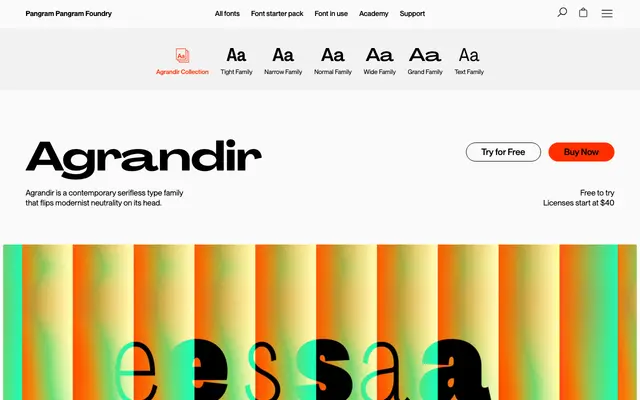
Agrandir
A 74-style serifless family spanning five widths and a text cut, built around deliberately imperfect, quirky letterforms as a counterpoint to modernist neutrality.
Designed by Alex Slobzheninov, Agrandir runs across six sub-families from Tight to Grand, each with 14 styles plus a variable cut, alongside a four-style Text family for body copy. Three OpenType preset alternates, Default, Grotesk and Geometric, shift the overall character without requiring per-glyph adjustments. The tight spacing and wide width range make it well suited to headlines, logotypes and posters, while the Text subfamily handles longer reads.
A serifless type family described as an antipode to neutral modernist grotesques, with deliberately quirky, unaligned letterforms that resist the clean geometry of pure geometric or humanist sans categories.